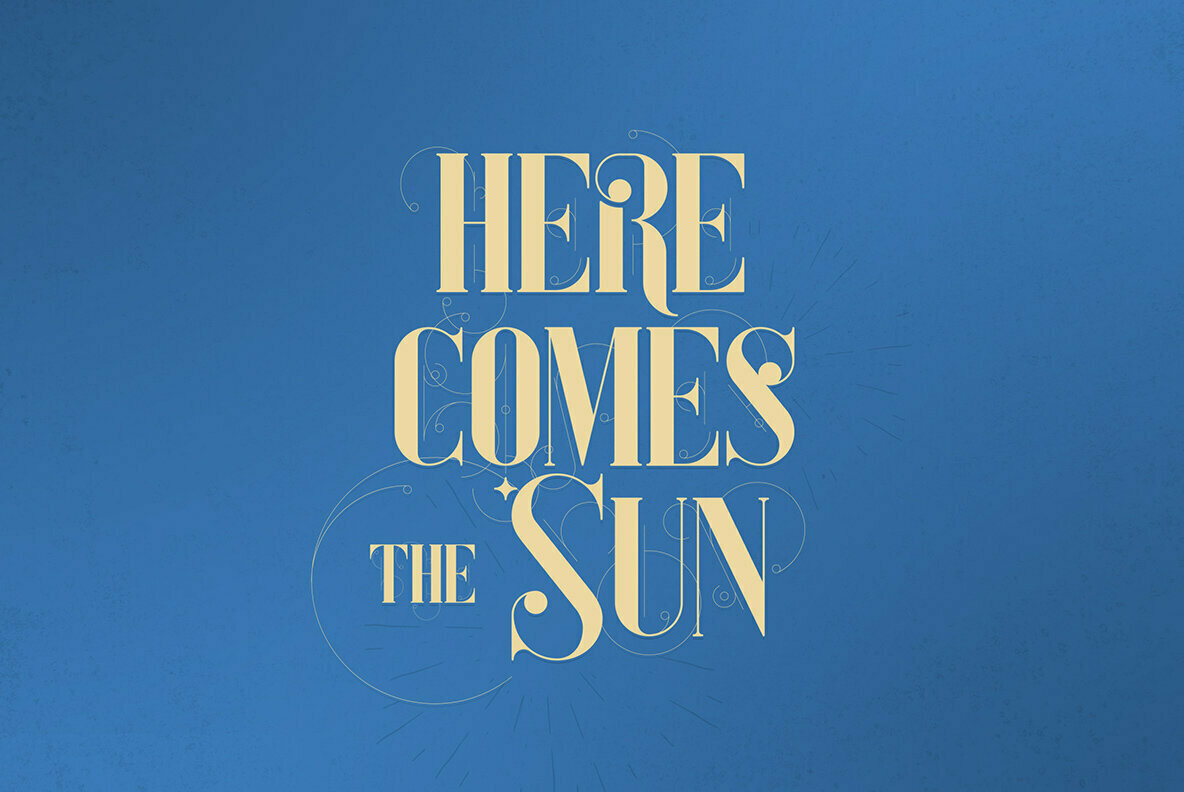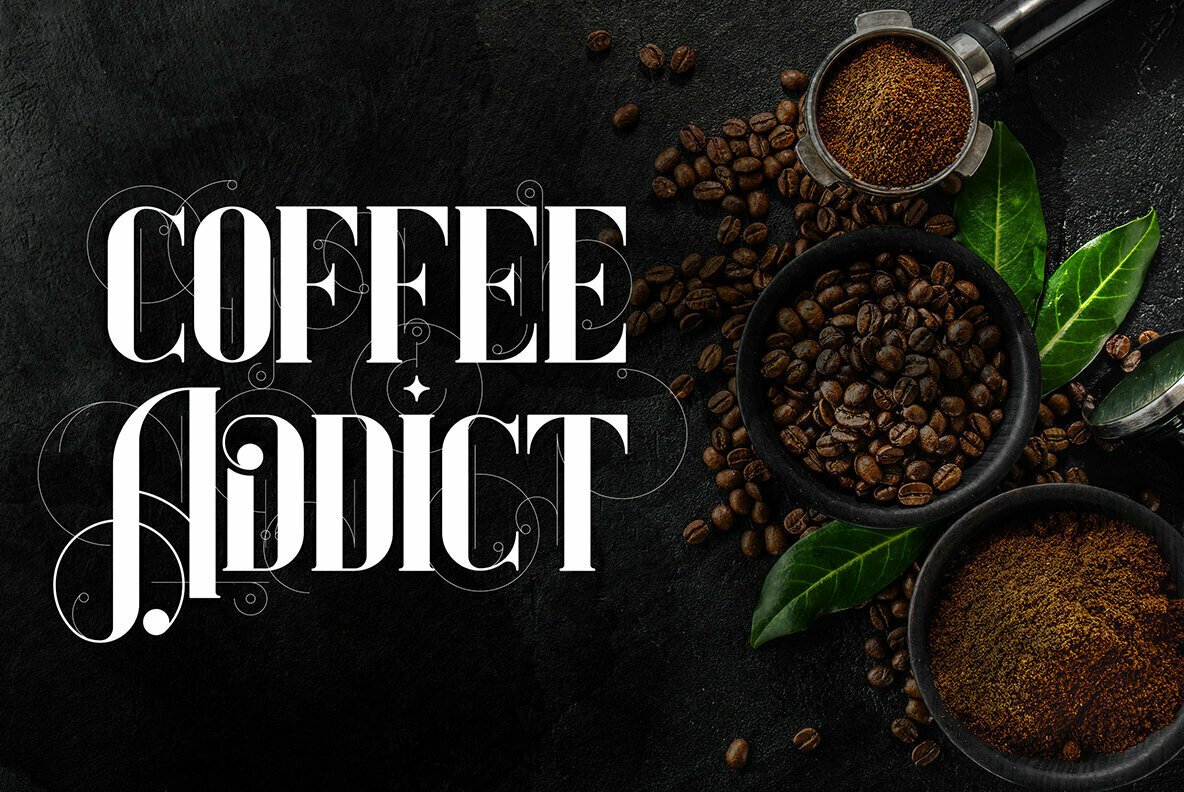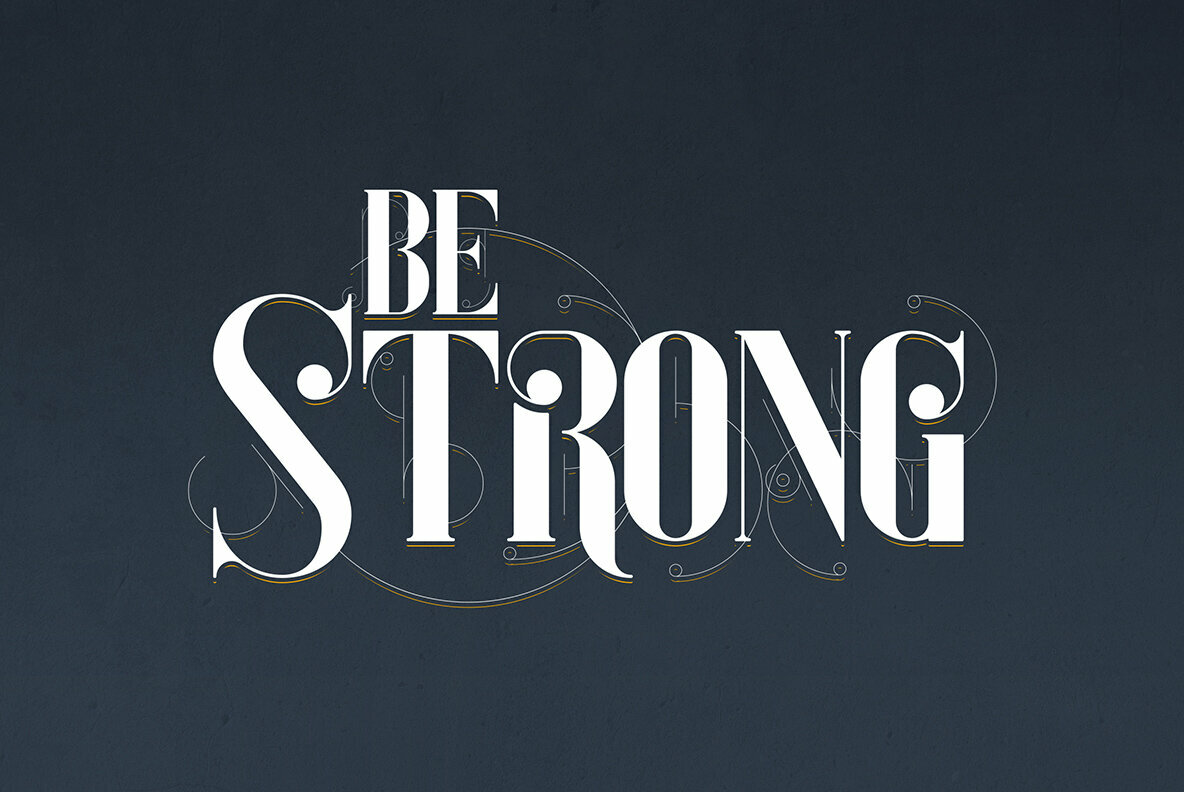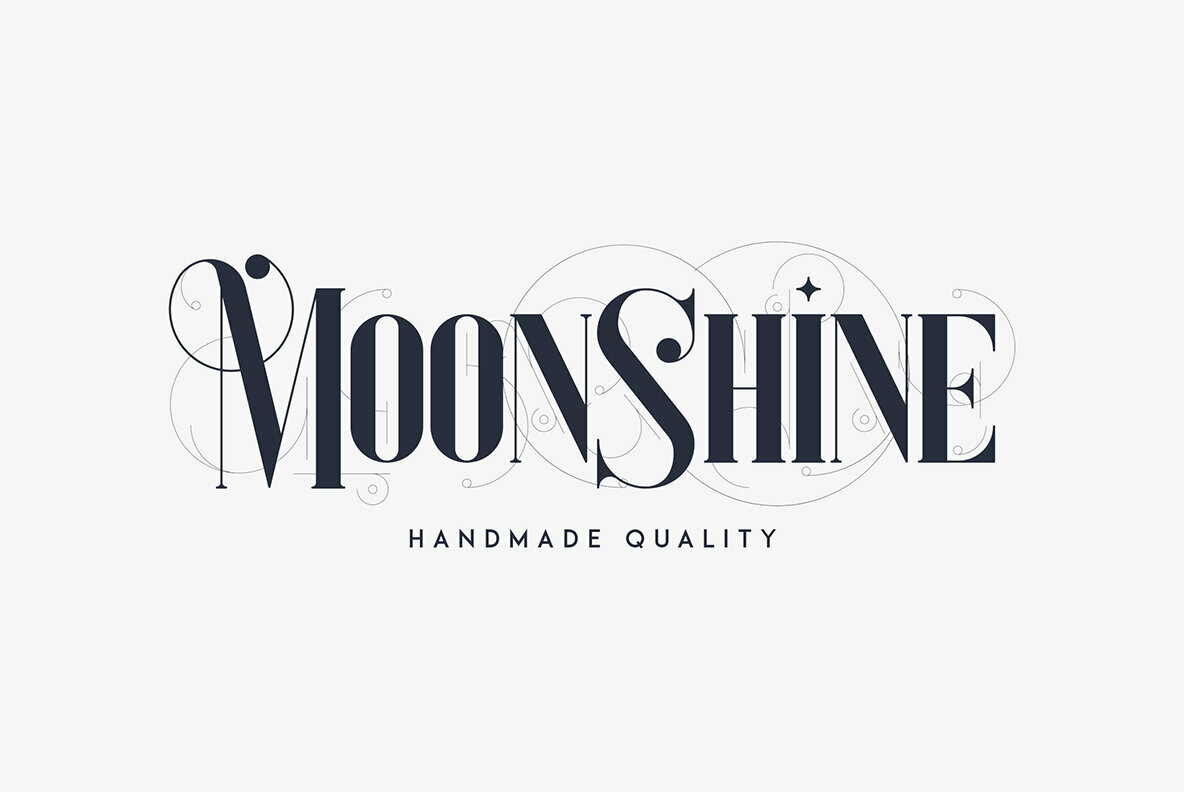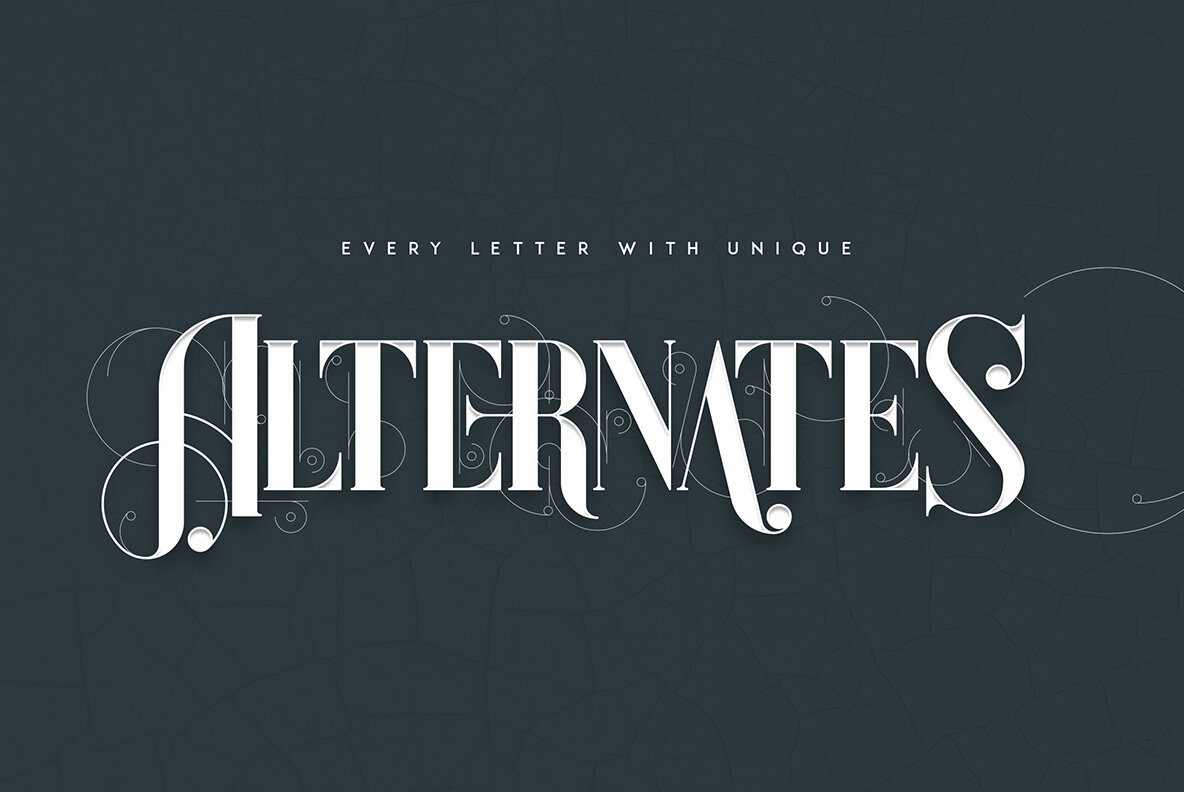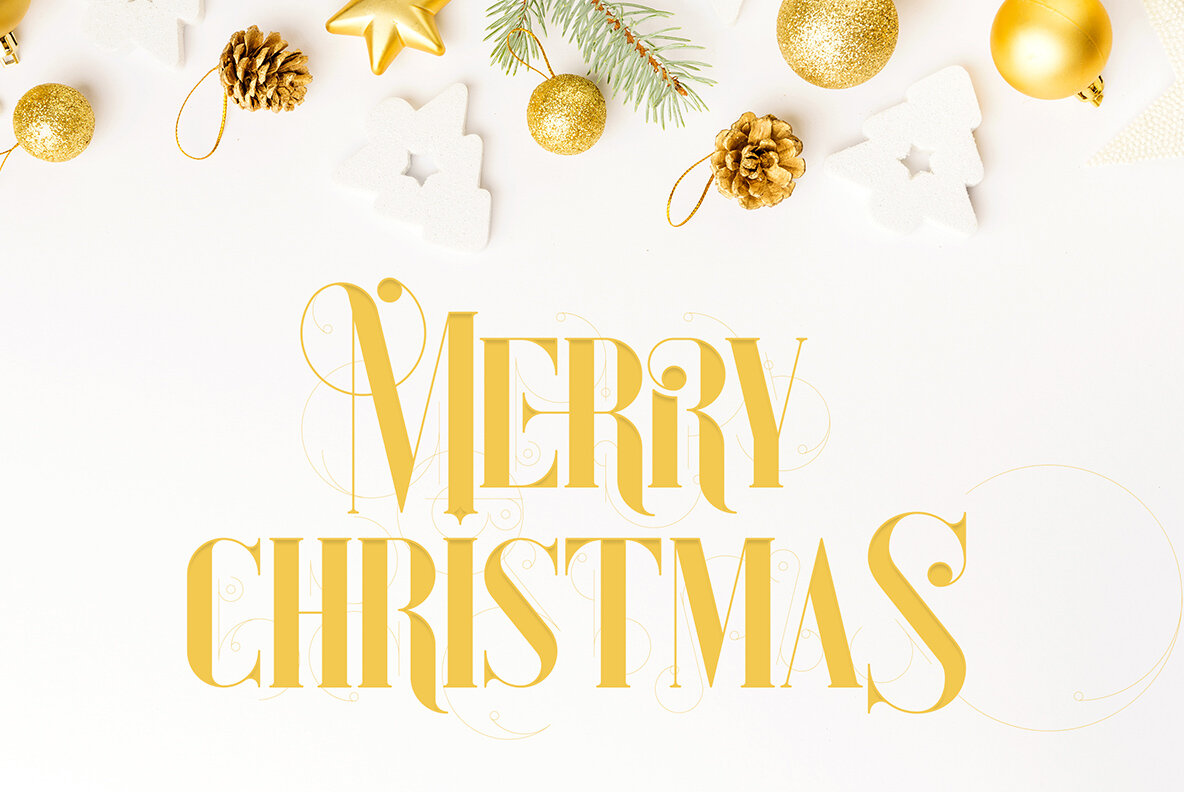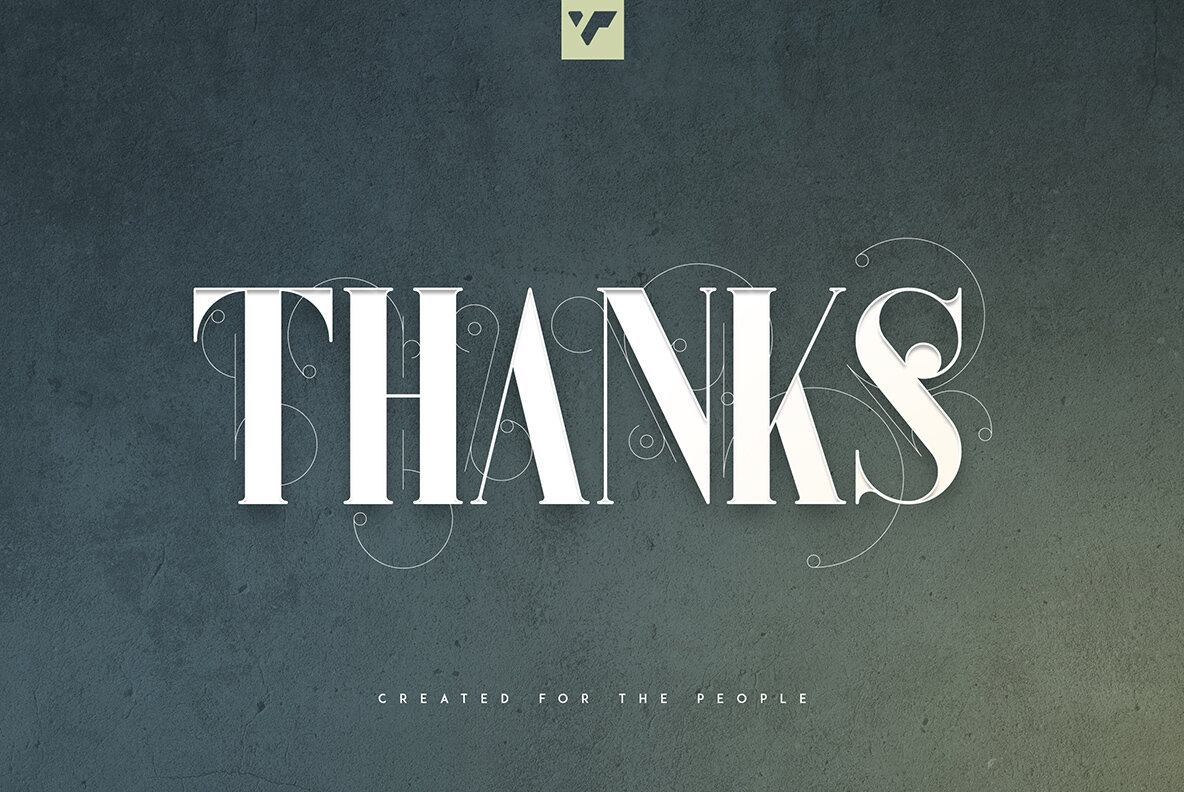
Unique Font
Unique stands as an epitome of elegance wrapped in a decorative serif style. This versatile font excels with its abundant alternate glyphs, ligatures, and multilingual support, making it ideal for both large and small applications. From the refined nuances of your branding projects to the sophisticated lines of product packaging, Unique seamlessly integrates with a variety of design elements. It delivers exceptional results whether used for magazine headers or as a chic text overlay on diverse backgrounds. Accessing alternate glyphs is straightforward in Adobe applications. In InDesign or Illustrator, navigate to Window > Type & Tables > Glyphs. For Photoshop users, go to Window > Glyphs, then select Alternates for Selection from the Show menu and double-click your chosen alternate.Unique: Decorative Serif Font With Endless Possibilities